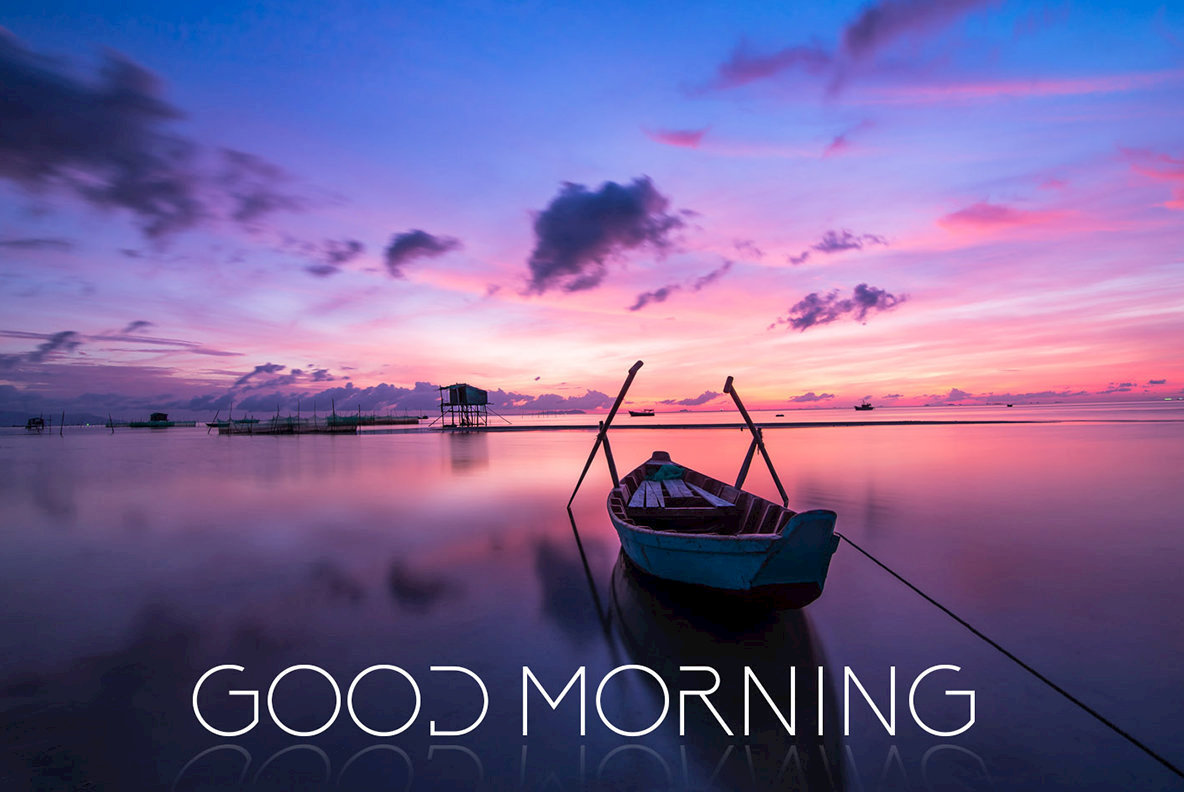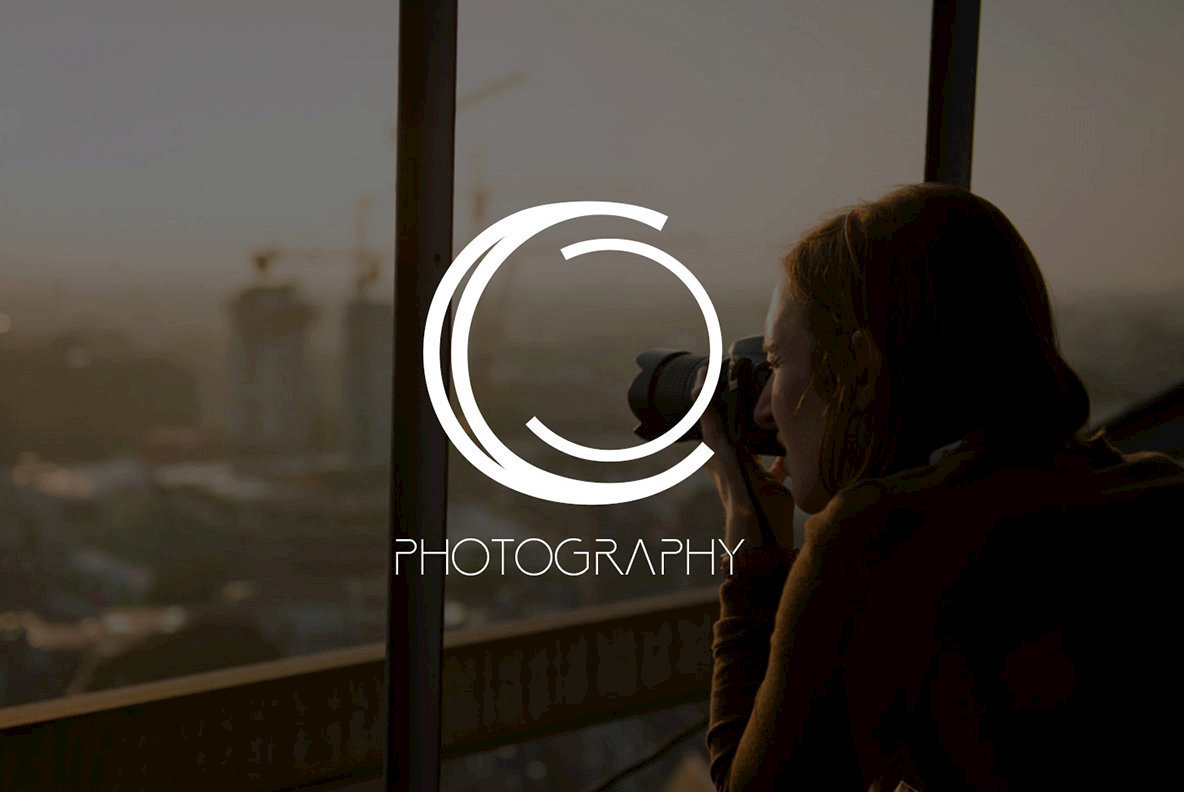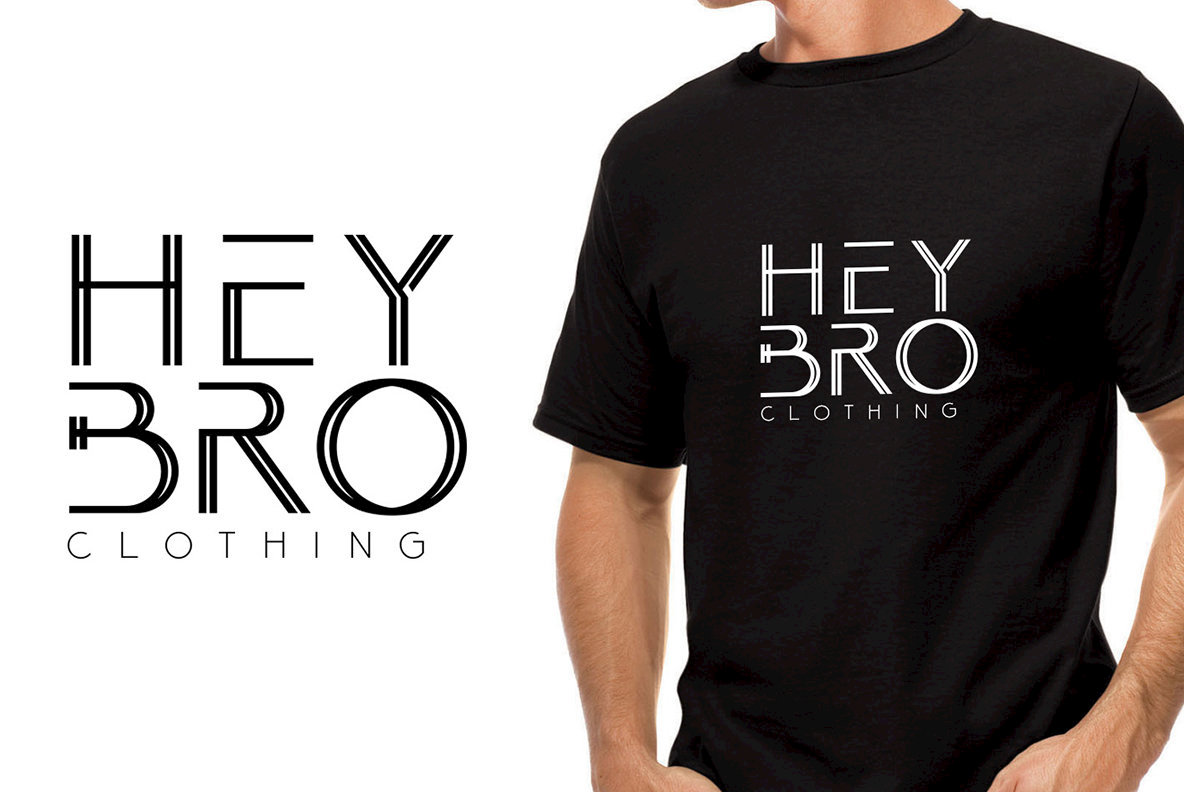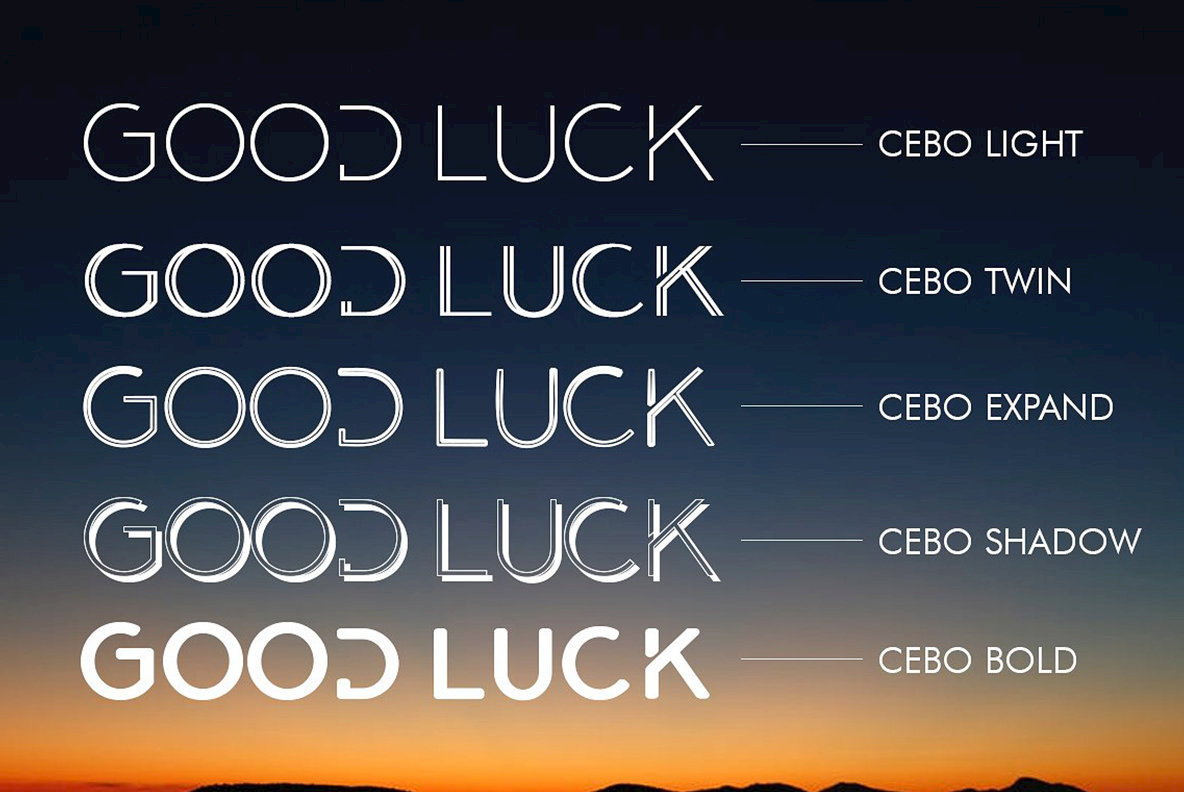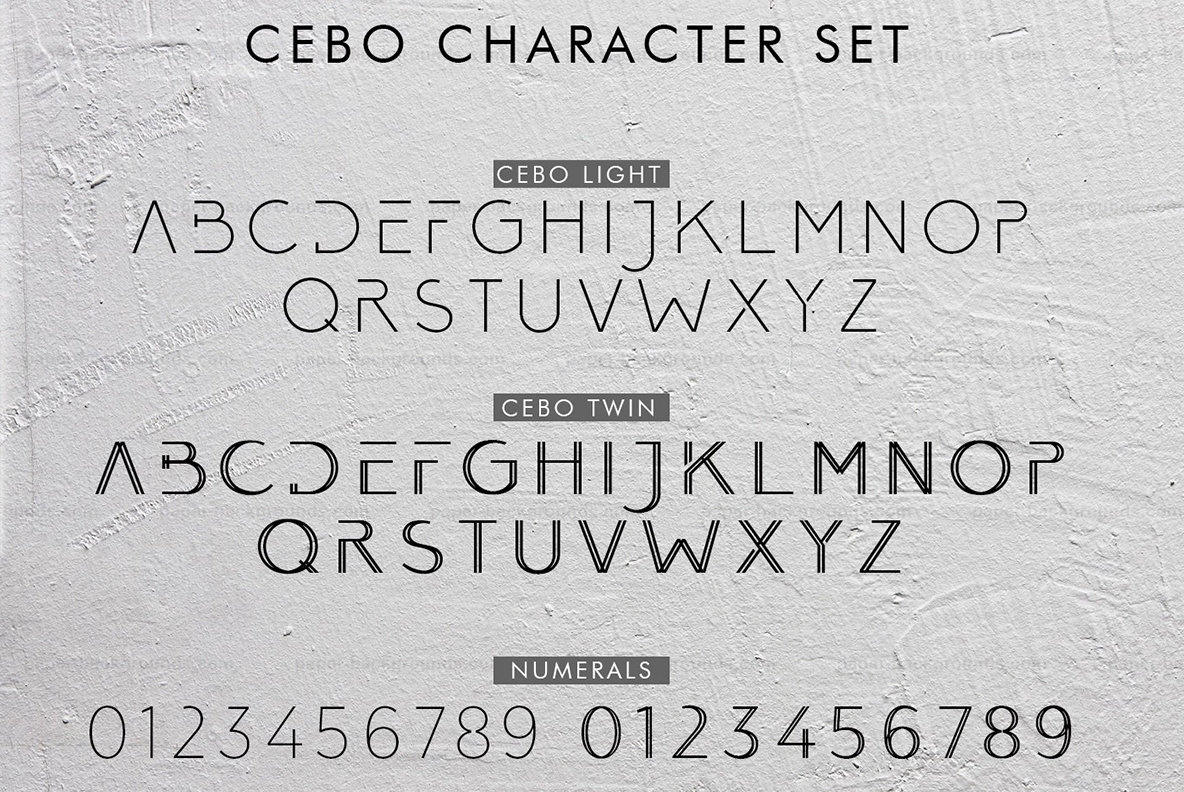
Cebo Font
The Cebo typeface collection offers a harmonious blend of minimalist design and diverse character through its array of five distinct styles. Whether you're designing a name card, crafting a logo, or creating impactful large-scale artwork, Cebo provides a versatile solution. Its adaptability shines across platforms, making it ideal for posters, magazines, covers, banners, and t-shirts.Cebo Typeface: Minimalist Versatility
With its sleek styles and clean lines, Cebo is crafted to meet the creative needs of today’s designers. Its versatility ensures it fits seamlessly into your projects, offering the perfect balance between aesthetics and functionality.